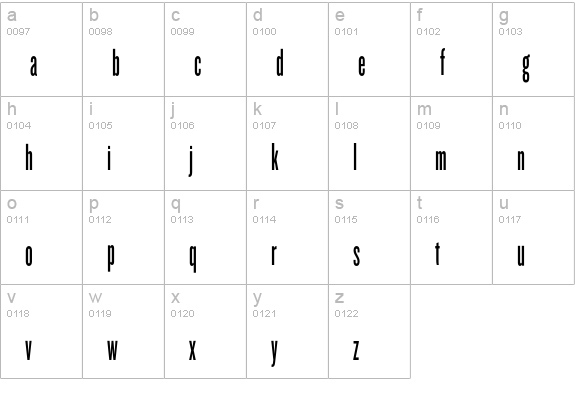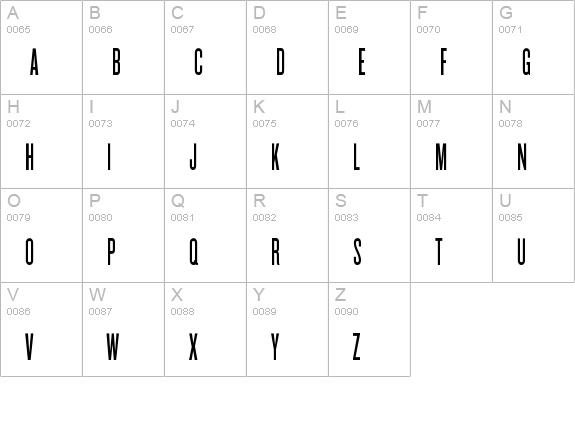
Introducing Knockout-HTF46-Flyweight, a stunningly sleek and modern font that brings a touch of sophistication to any design project. This font exudes an air of elegance and professionalism, making it perfect for a wide range of applications, from branding and advertising to editorial layouts and website design. The Knockout-HTF46-Flyweight font features clean lines and a subtle, yet distinct, weight that effortlessly captures attention. Its sleek and streamlined appearance adds a touch of contemporary flair, making it a versatile choice for both digital and print mediums. One of the standout features of this font is that it is available for free download at FontsMarket.com. Yes, you read that right - this incredible font can be yours without spending a dime. So whether you're a professional designer looking to enhance your toolkit or a hobbyist seeking to add a touch of sophistication to your personal projects, Knockout-HTF46-Flyweight is the perfect choice. With its wide range of characters and glyphs, this font offers endless creative possibilities. Its versatility allows it to adapt seamlessly to any design concept, while its refined aesthetics ensure a visually stunning end result. The Knockout-HTF46-Flyweight font is not just visually appealing, but also highly functional. Its legibility and readability make it ideal for use in both large and small sizes, ensuring that your message is conveyed effortlessly to your audience. So why wait? Discover the power of Knockout-HTF46-Flyweight and elevate your design projects to new heights. Download this remarkable font for free at FontsMarket.com and unlock a world of creative possibilities.